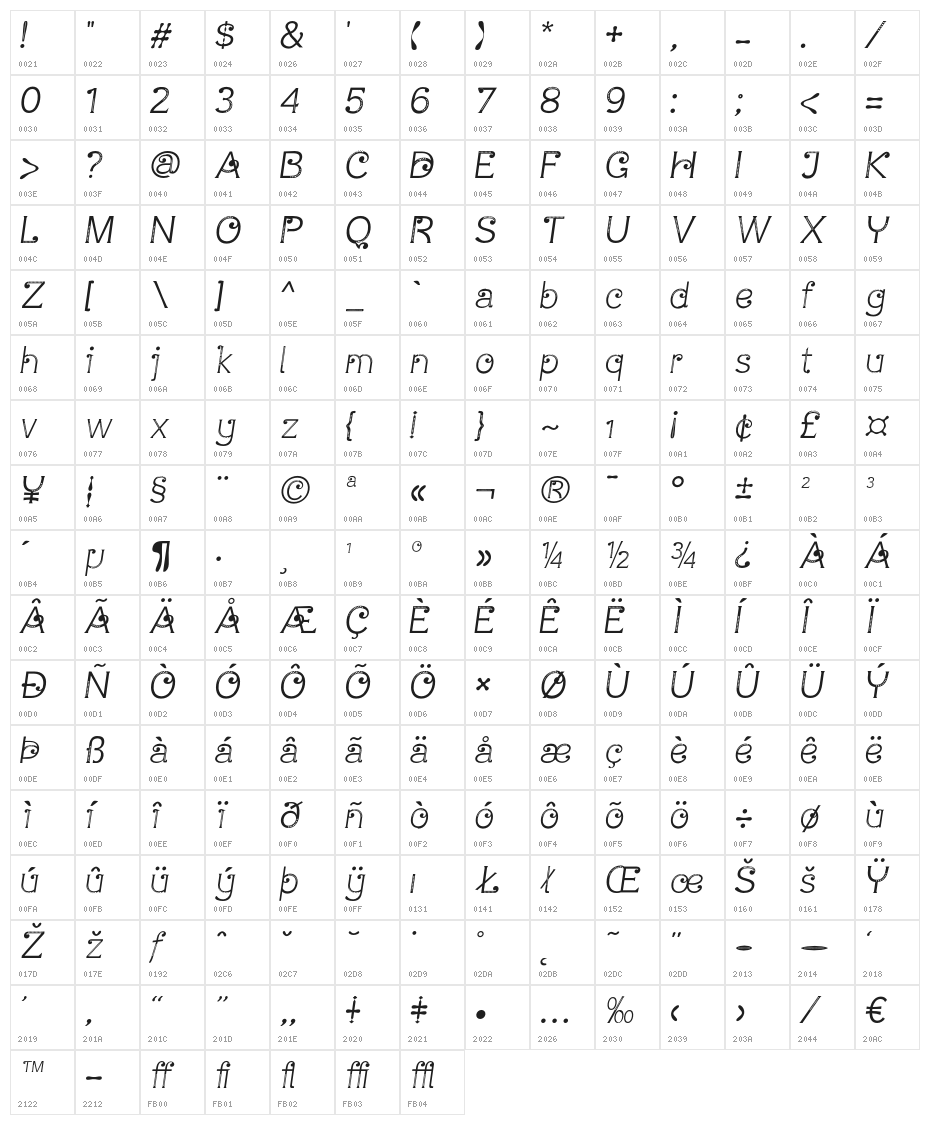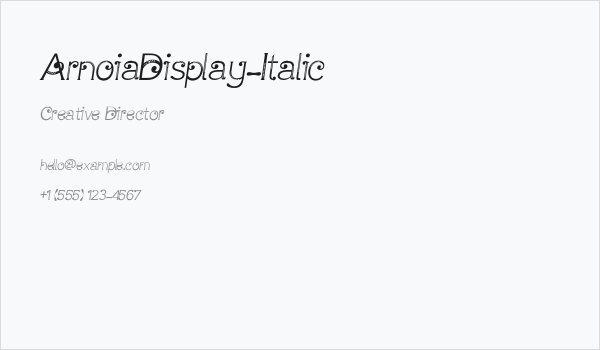
ArnoiaDisplay-Italic Font
ArnoiaDisplay-Italic Description
This font features a unique and playful design with a dotted pattern running through the strokes of each character. The letters are italicized, adding a dynamic and flowing appearance. The uppercase and lowercase letters maintain a consistent style, with rounded edges and a slight slant. The numerals are bold and clear, matching the overall aesthetic. Special characters are creatively designed, incorporating the dotted motif. This font stands out with its decorative elements, making it suitable for eye-catching designs.
| Proposed Projects | Ideal for creative projects such as posters, invitations, and branding materials that require a distinctive and artistic touch. |